Fancy Letter U Font
Every fancy font style rendered for just the letter U, so you can compare them side by side before picking one for an initial, a logo, or a single-character tag.
The Letter U in Every Style
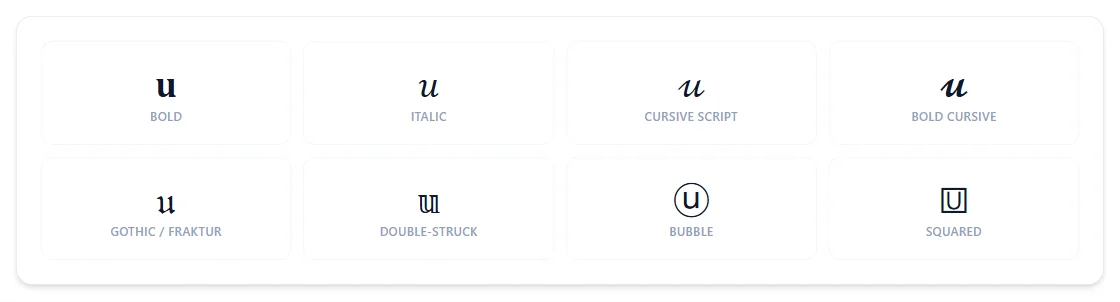
Flip capital U upside down and it becomes ∩ — the set-theory symbol for "intersection," a coincidence of shape rather than meaning, but a handy way to remember what the rotated version looks like.
Why does upside-down U look like a math symbol?
It's ∩, the set-theory symbol for "intersection" — Unicode's rotated U reuses it because the shapes happen to match.